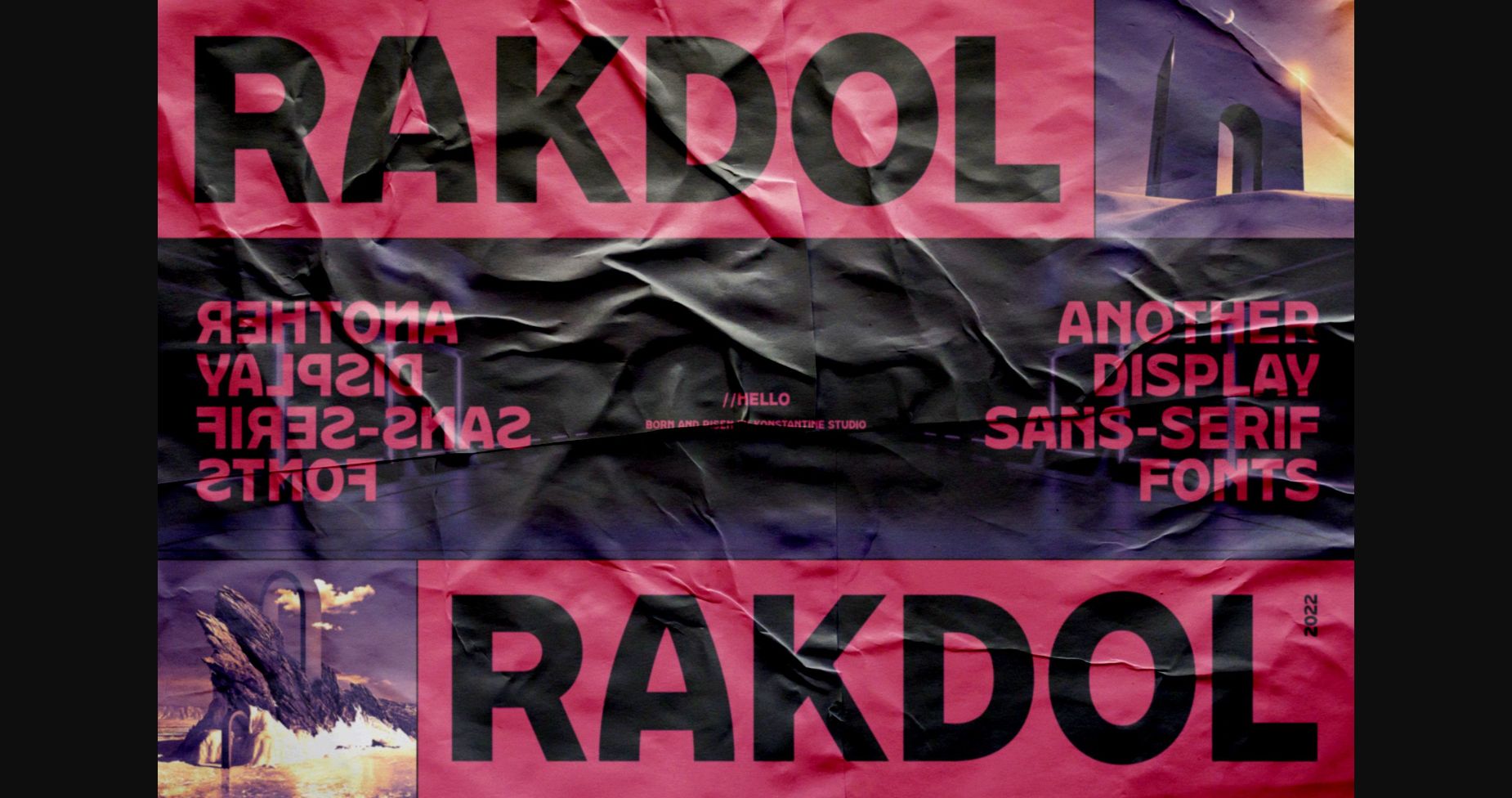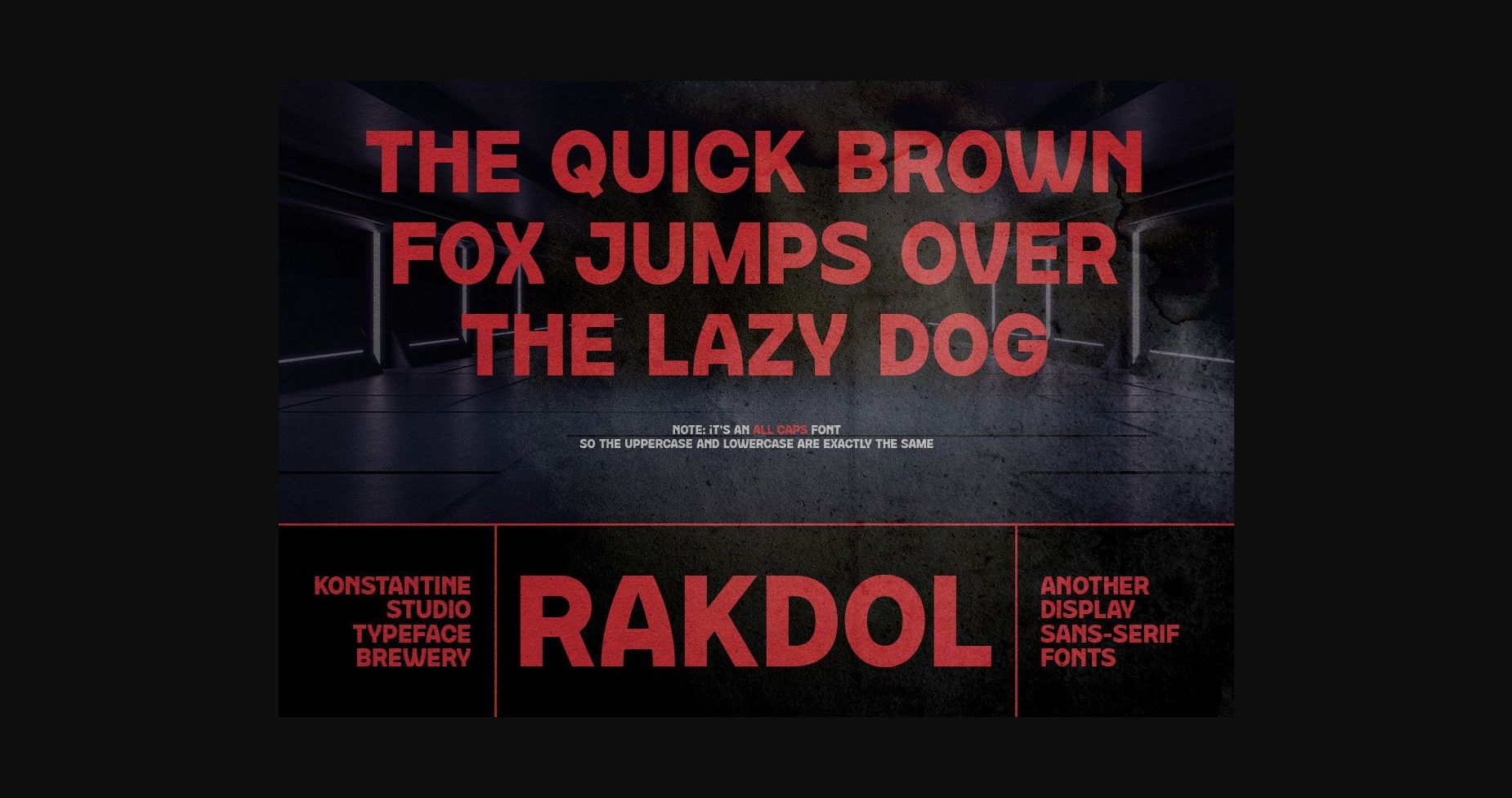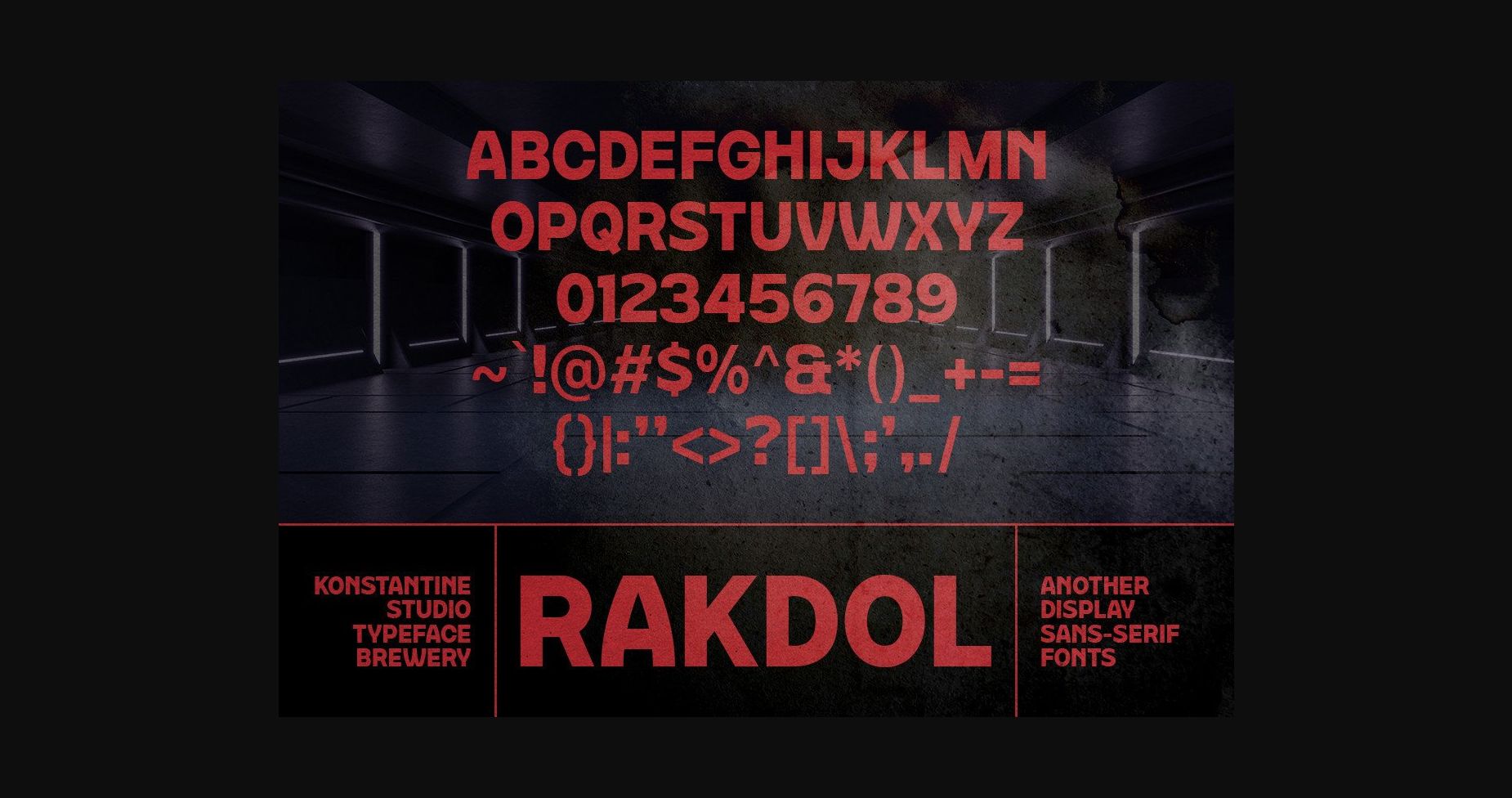
Rakdol Font
About Rakdol Font
Another display sans-serif in the building. Please welcome, Rakdol. Your next favorite sans-serif font.
A bold body font with slight tweaks to minor sides of the letterform with maintaining the easy-to-use feels and readability.
Perfectly fit for modern poster design, logo, branding, fashion, food, and beverages, Rakdol is an easy way to go anytime you need a solid statement.
Note: it’s an ALL CAPS font, uppercase, and lowercase will appear the same.